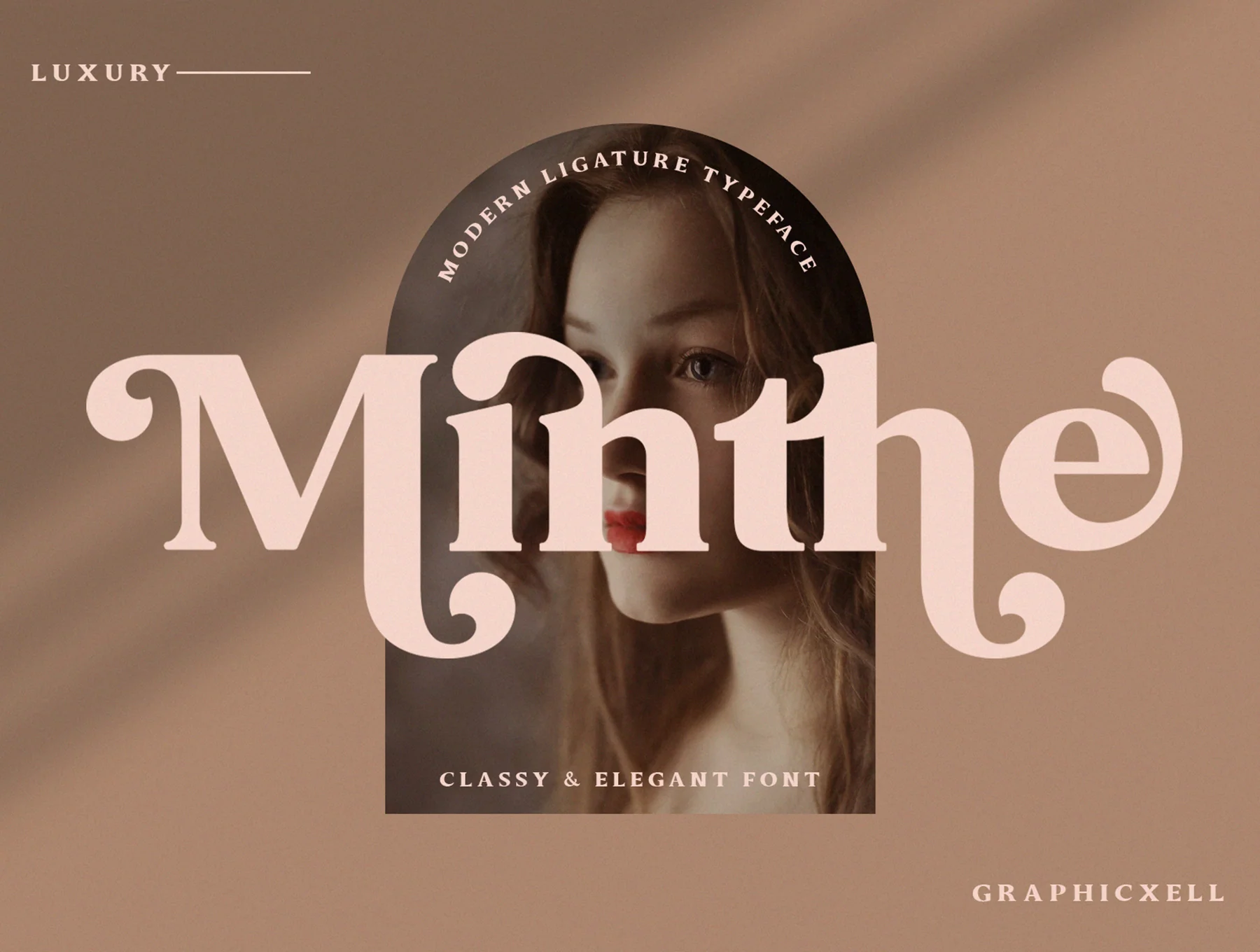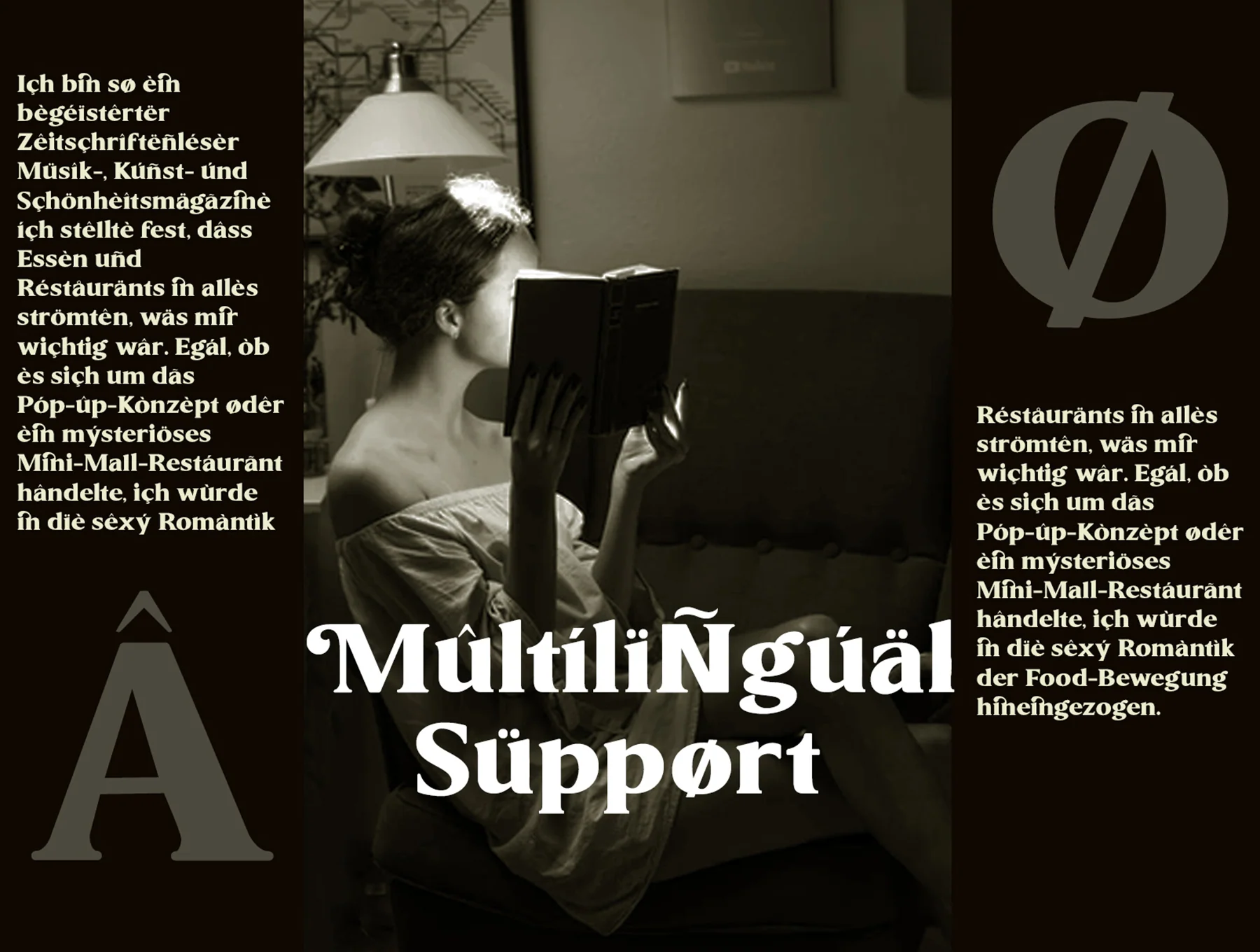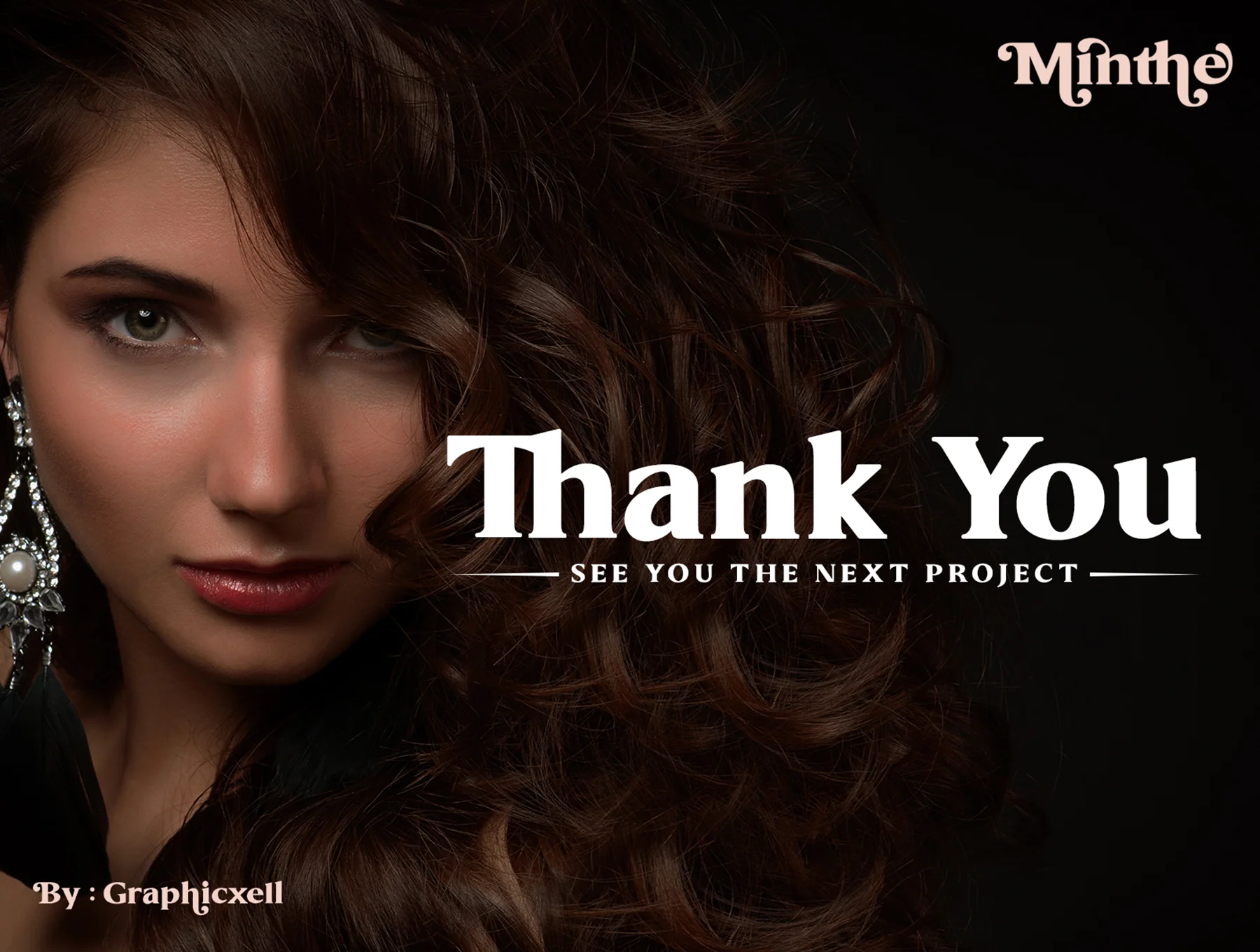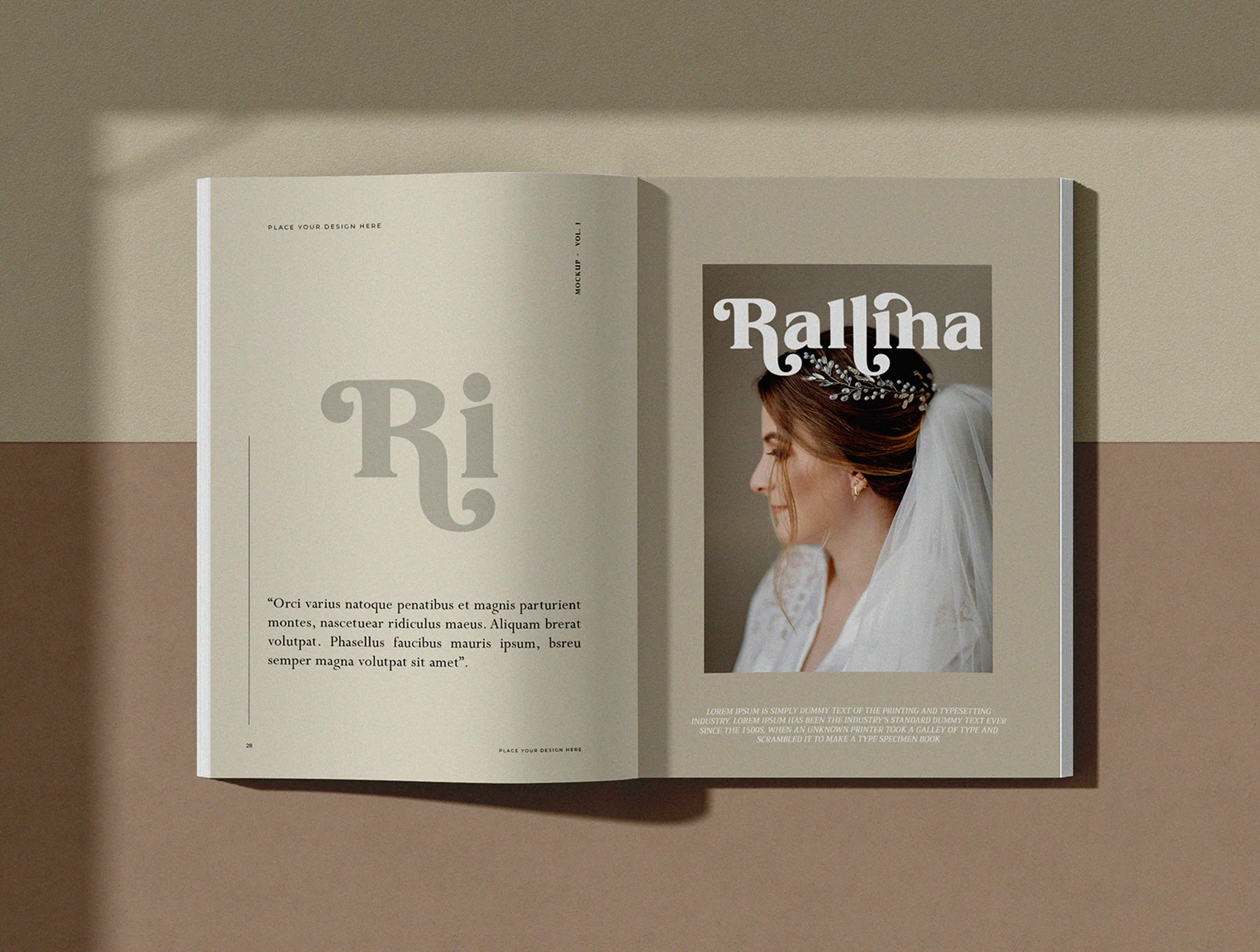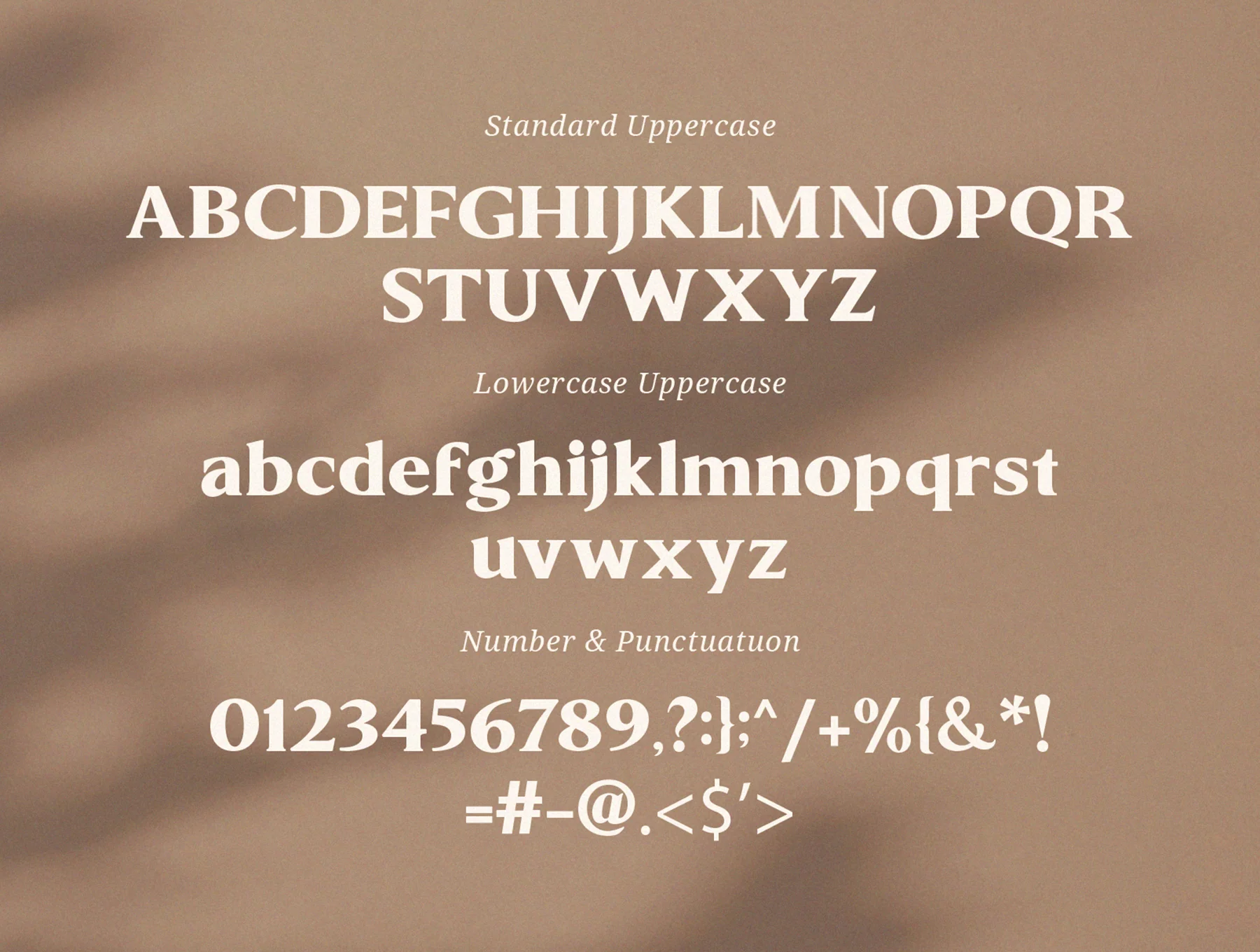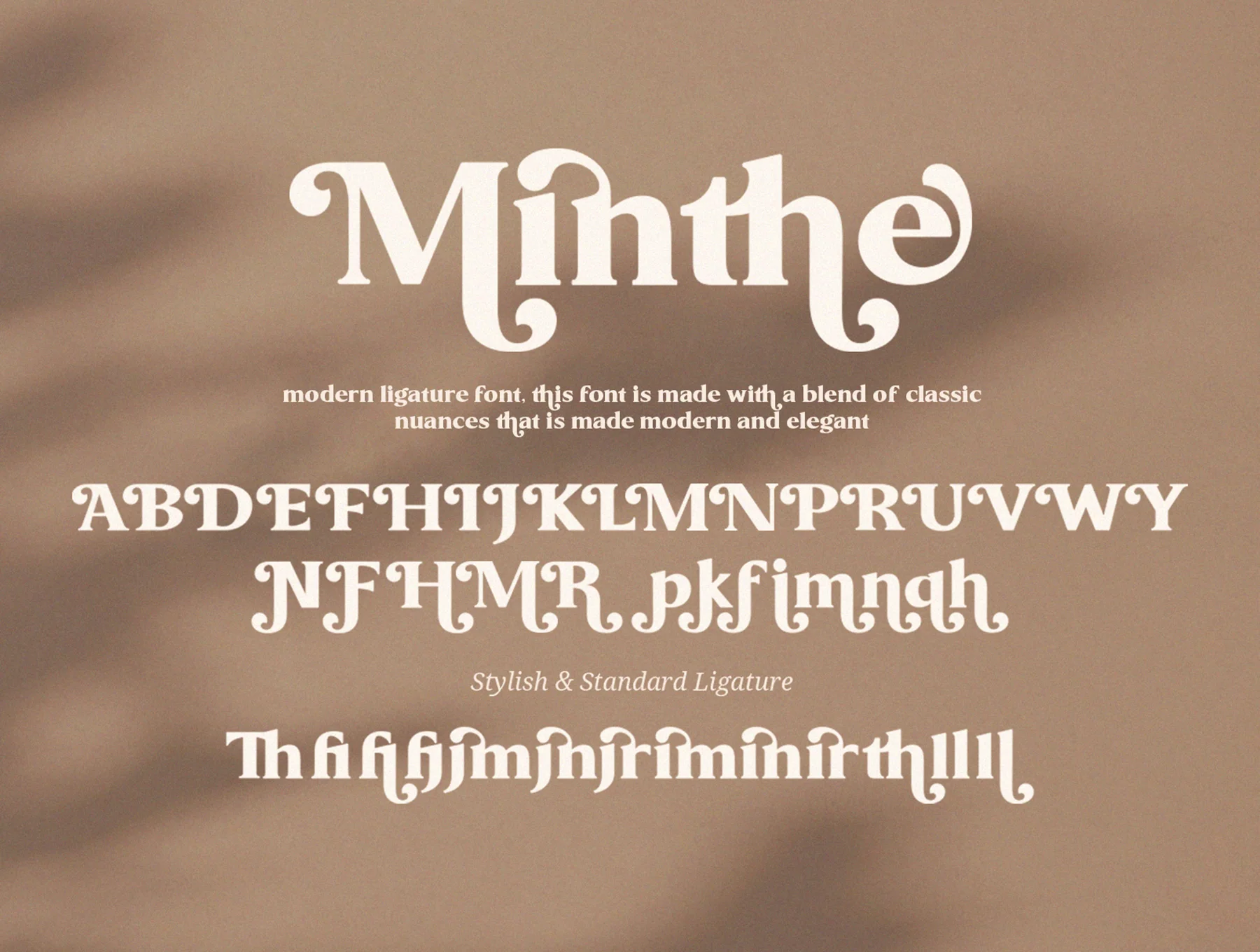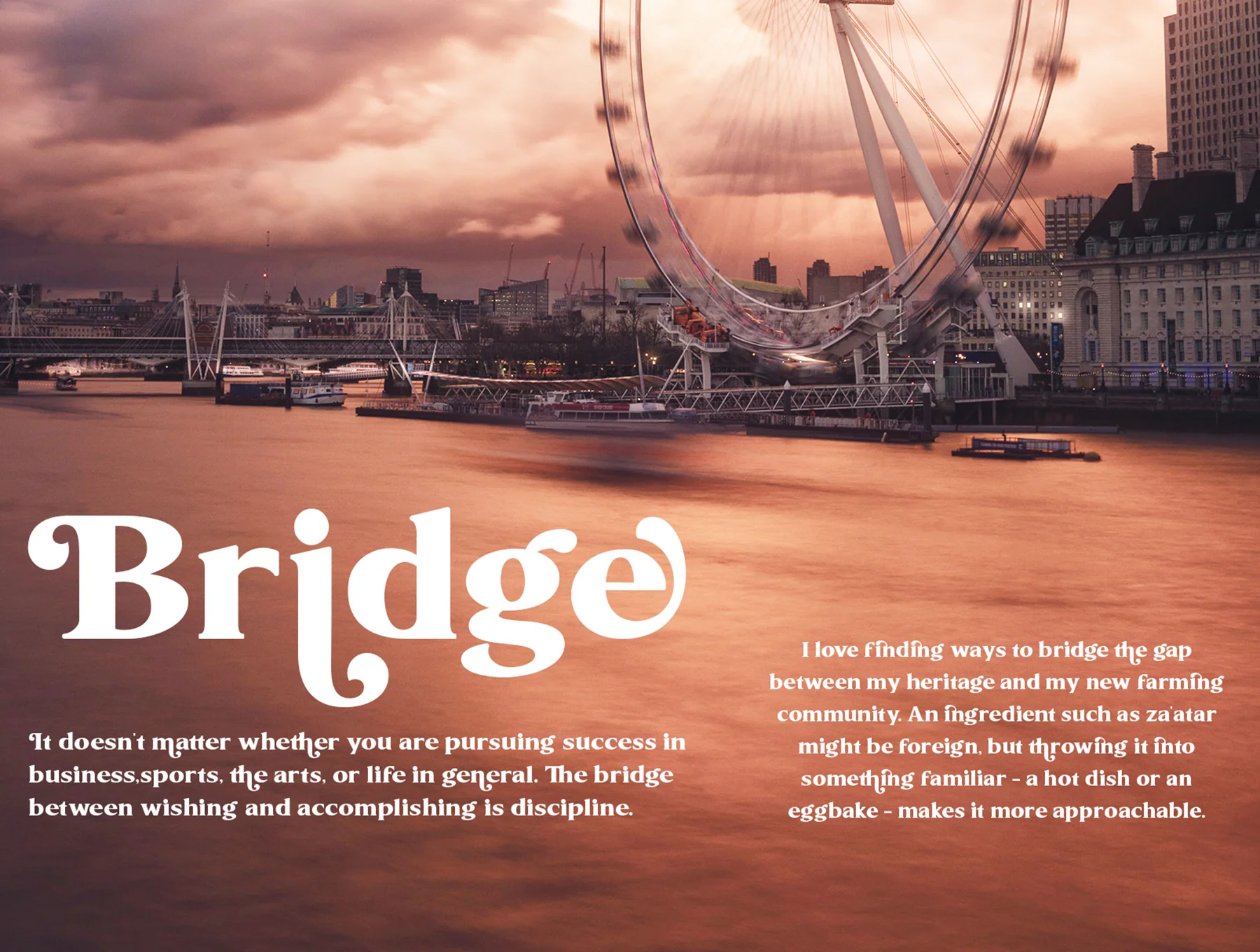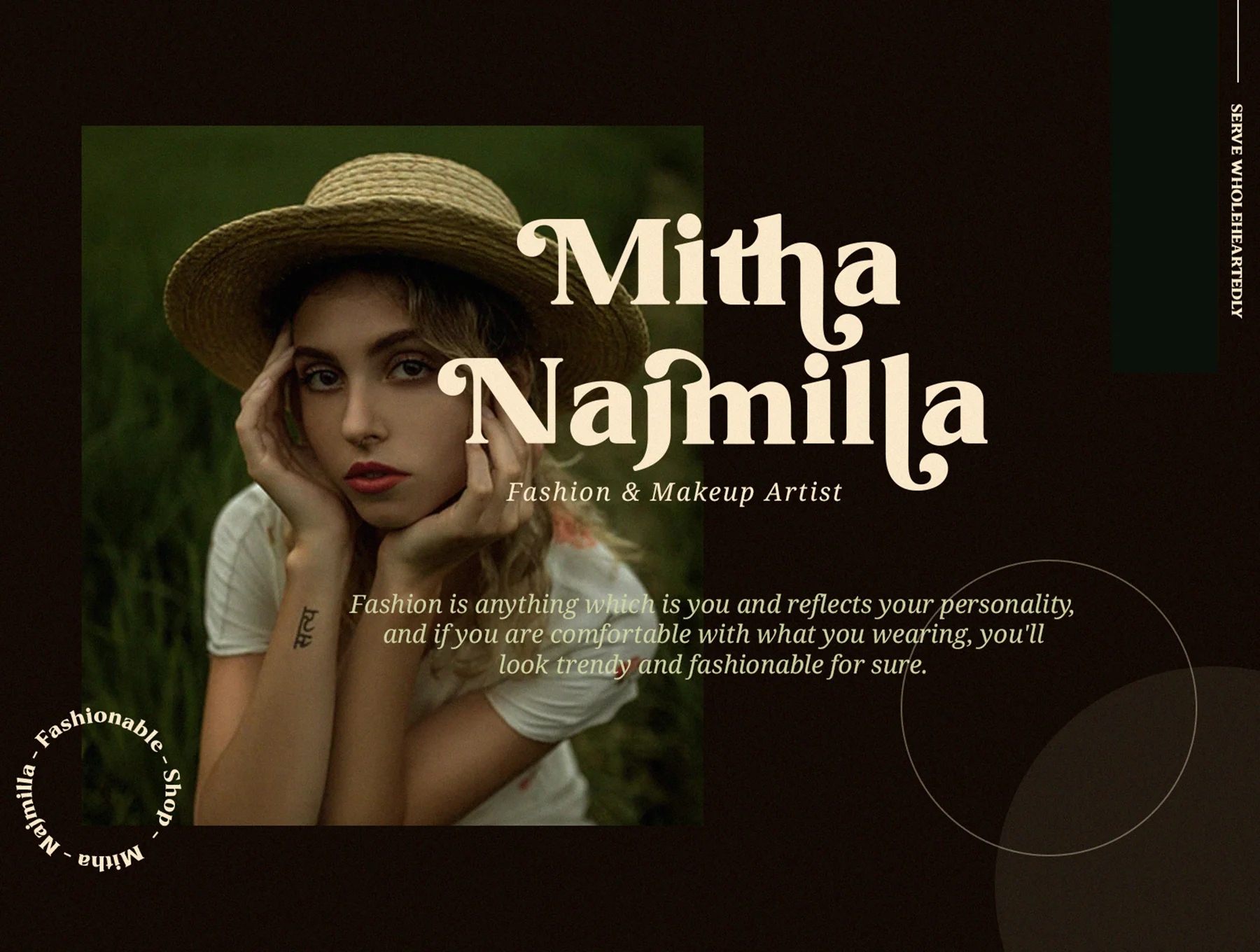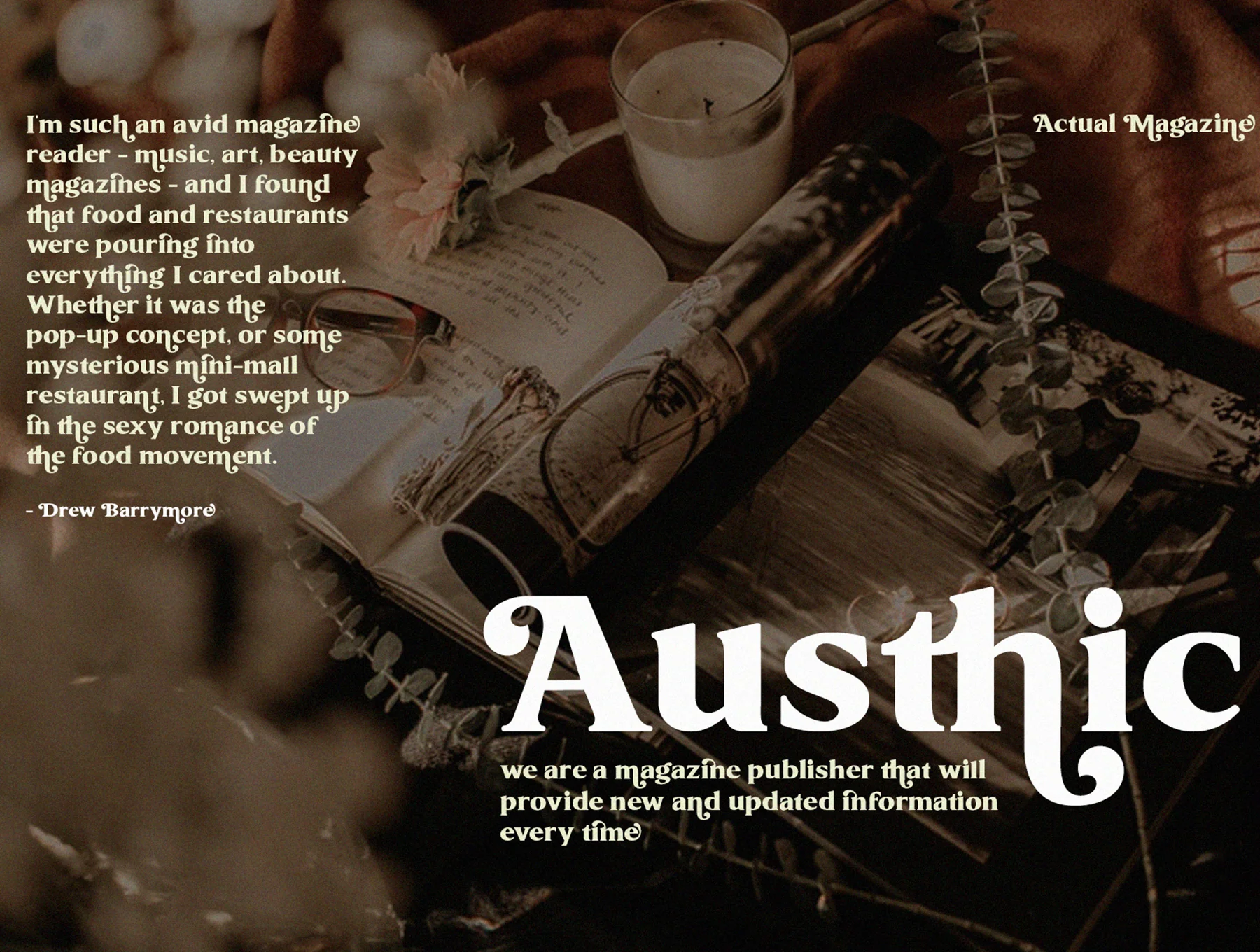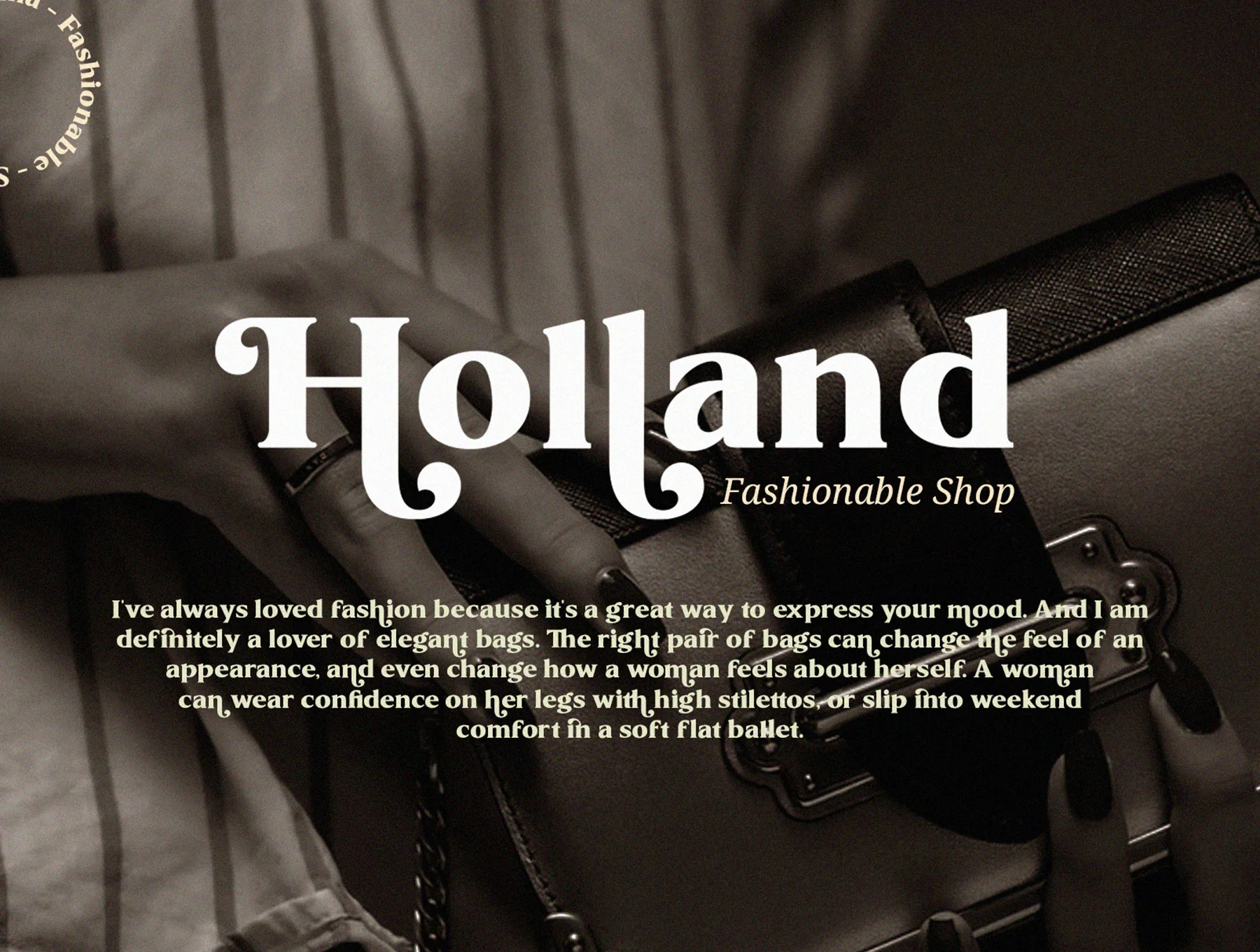
Minthe - Elegant Serif Font
Refined Serif Typeface
Complete uppercase and lowercase alphabet
Contemporary and stylish look
International glyphs, numbers, and punctuation
Minthe is an elegant display serif influenced by iconic minimalist logo design, ideal for templates, brochures, videos, ads, branding, logos, and more. Includes OTF/TTF files, web font, standard glyphs, ligatures, accents, multilingual support, PC/Mac compatibility, and easy setup. Works with Adobe apps and Microsoft Word. Preview images are not included.